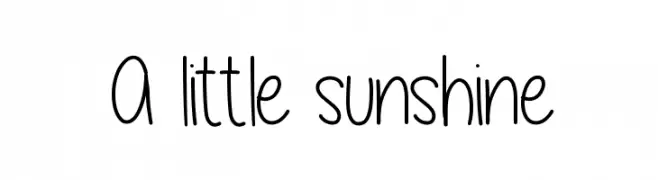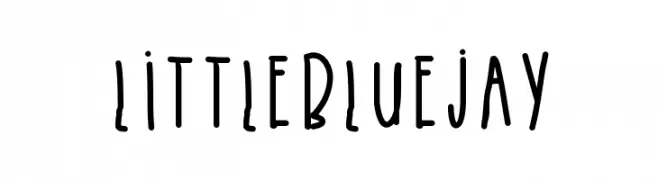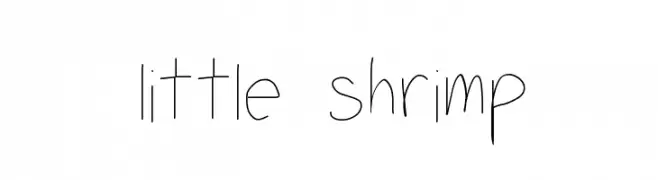
A playful, rounded font with smooth edges and consistent stroke width.
A bold, high-contrast font with sharp, angular strokes and a modern flair.
A playful, handwritten font with a casual and whimsical style.
A playful, hand-drawn font with tall, narrow letters and a whimsical style.
A playful, sports-themed font with baseball elements integrated into each letter.
A playful handwritten font with thin, delicate strokes and a whimsical style.